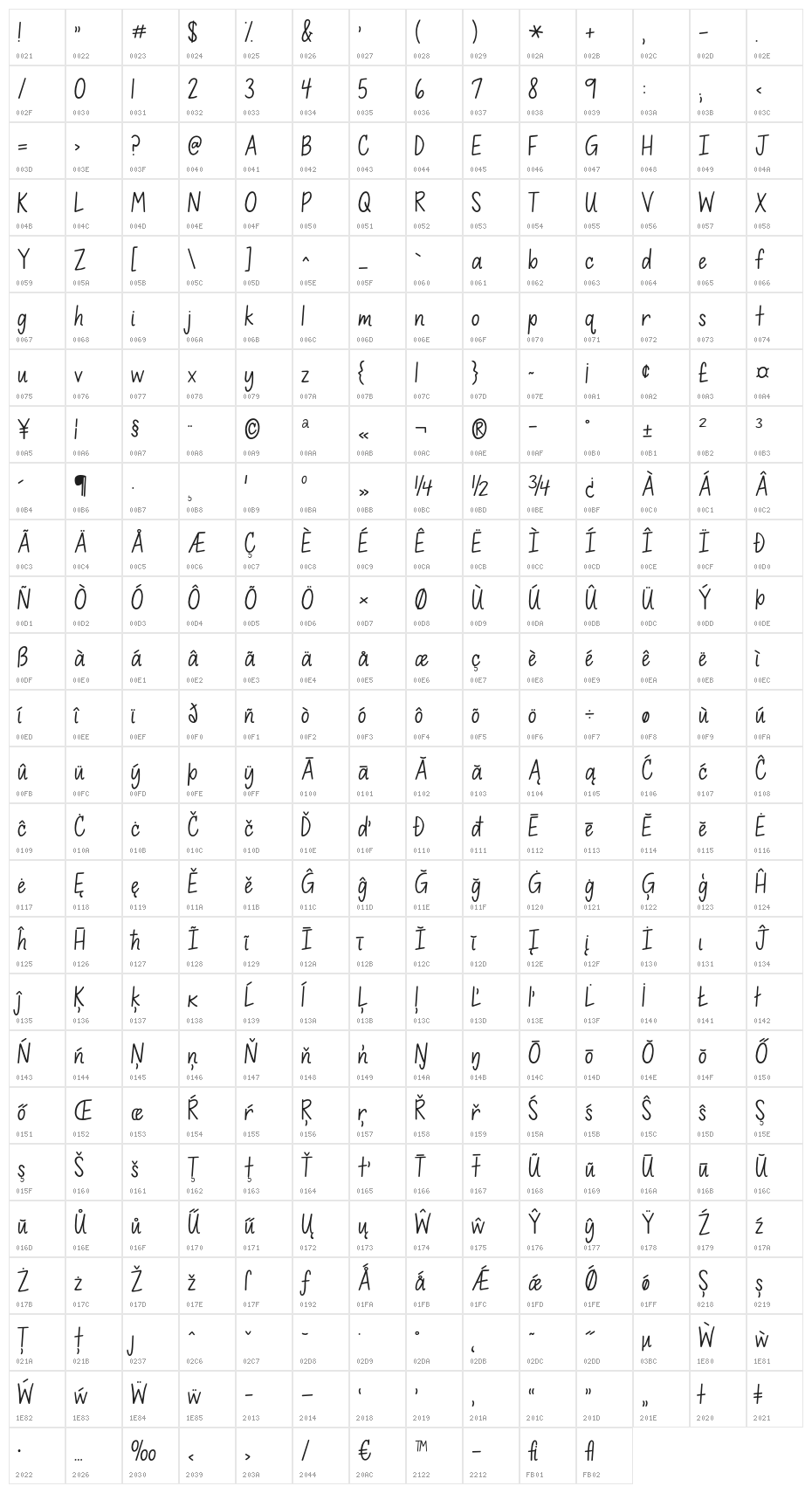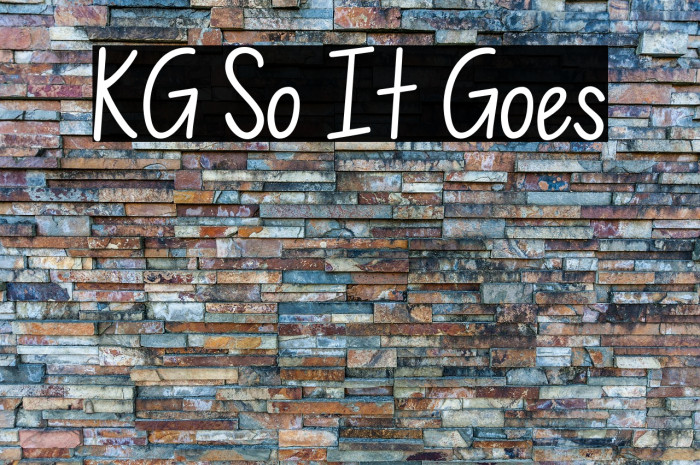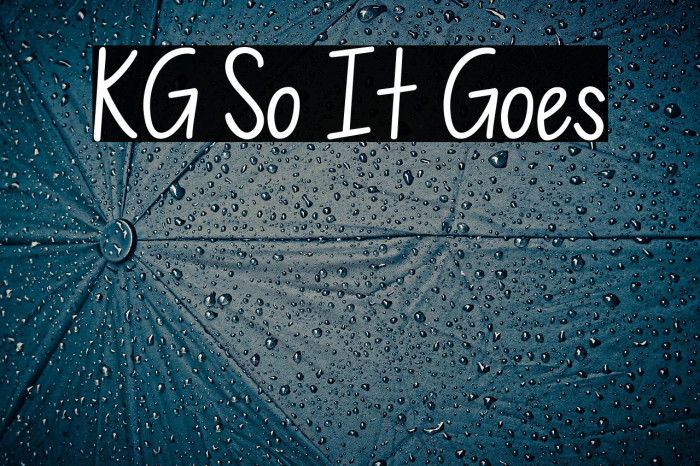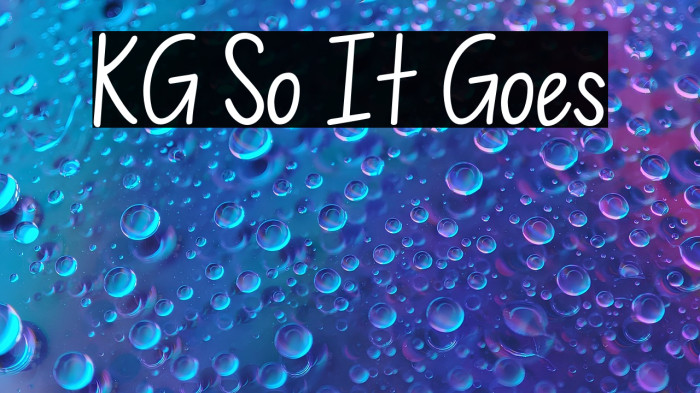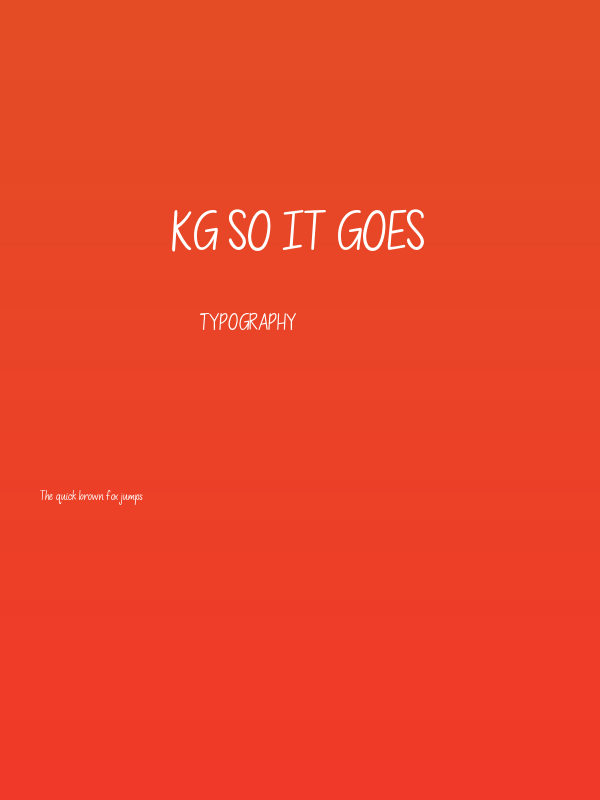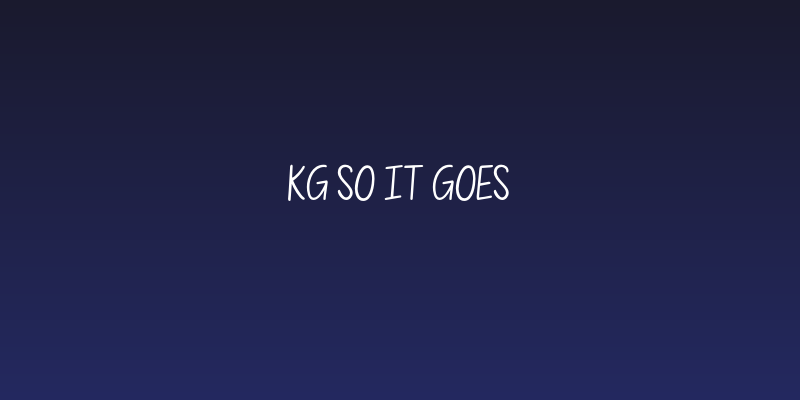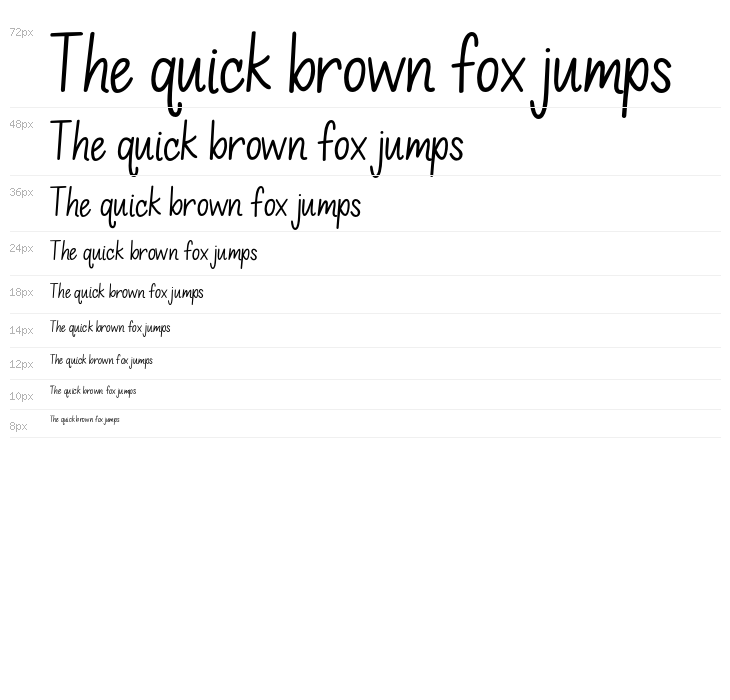
KG So It Goes Font
KG So It Goes Description
This font features a playful and casual handwritten style, characterized by its smooth curves and slightly irregular letterforms that mimic natural handwriting. The uppercase and lowercase letters maintain a consistent flow, while the numerals and special characters complement the overall aesthetic. The strokes are moderately thick, providing a balanced contrast that enhances readability without sacrificing the font's informal charm. Its friendly and approachable appearance makes it suitable for a variety of creative projects.
| Proposed Projects | Ideal for greeting cards, invitations, personal branding, and creative social media graphics. |